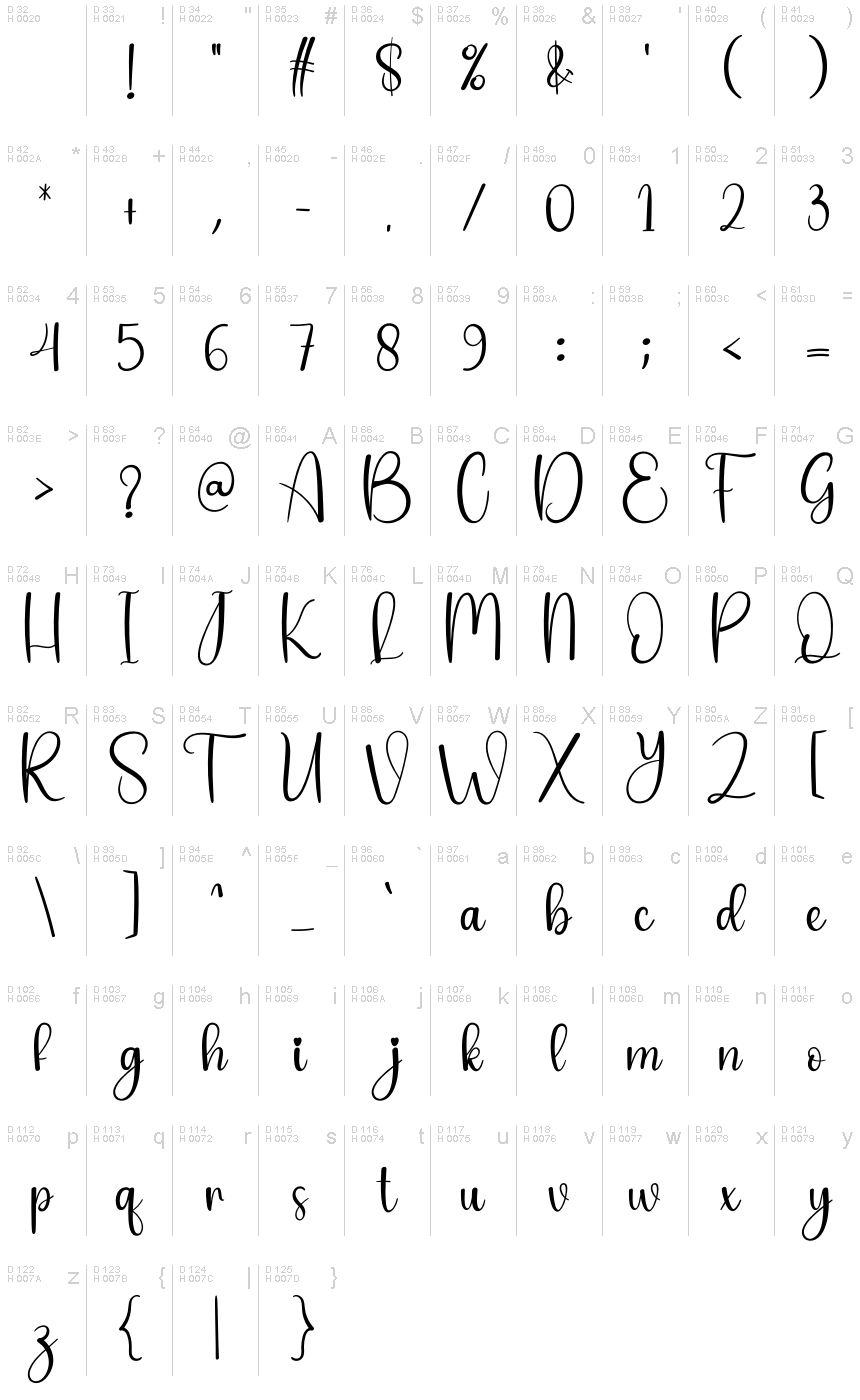
Suddenly
Suddenly, by Scratchones, is a handwritten font that exudes a casual yet elegant charm, reminiscent of personalized notes and bespoke invitations.
Its fluid strokes and light font deliver a sense of intimacy and authenticity, making it an excellent choice for projects requiring a touch of personal flair. The graceful flow of the letters in Suddenly captures the spontaneity of handwriting while maintaining legibility and finesse, ideal for branding endeavours that value originality and approachability. Whether setting the tone for an intimate event or crafting a unique identity for a boutique business, Suddenly stands out with its sophisticated blend of casual artistry.